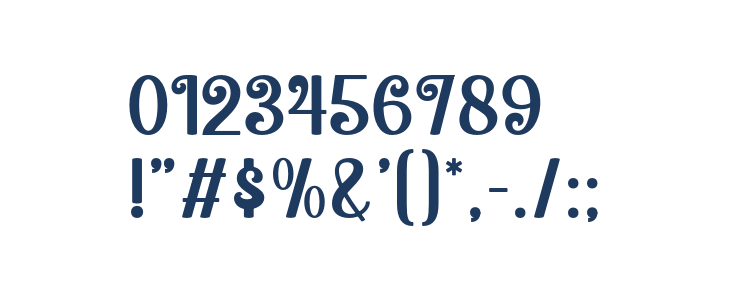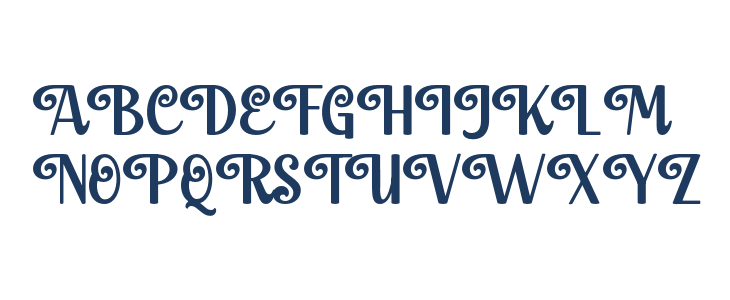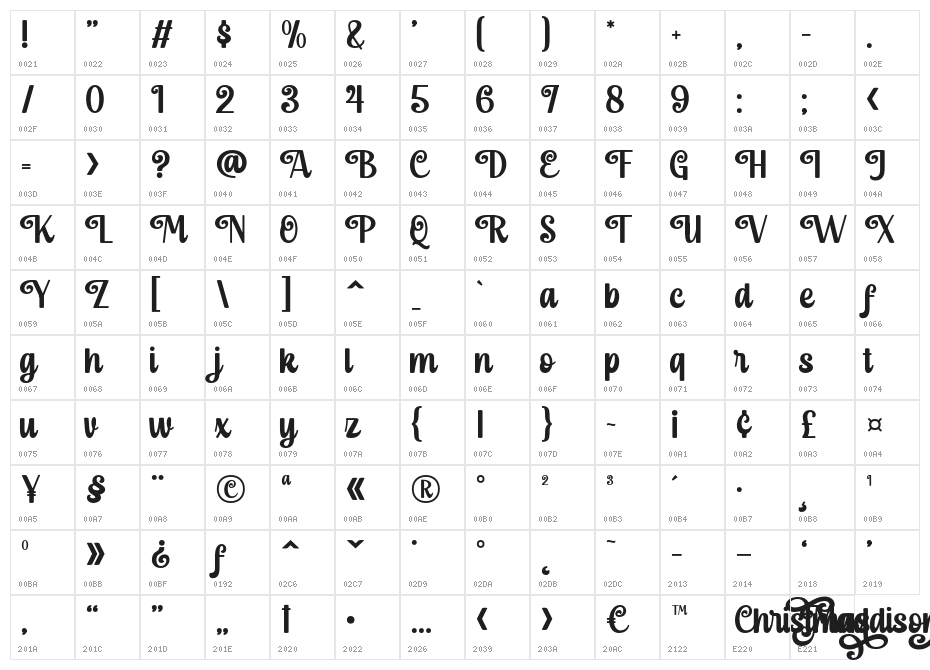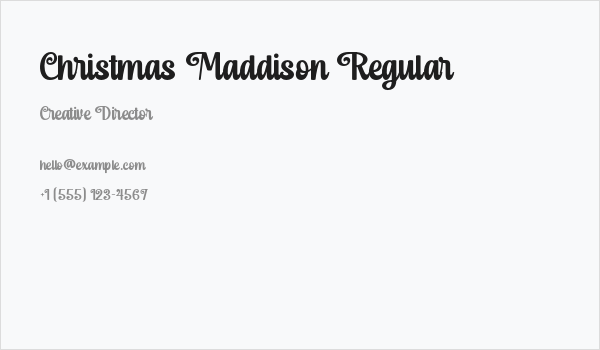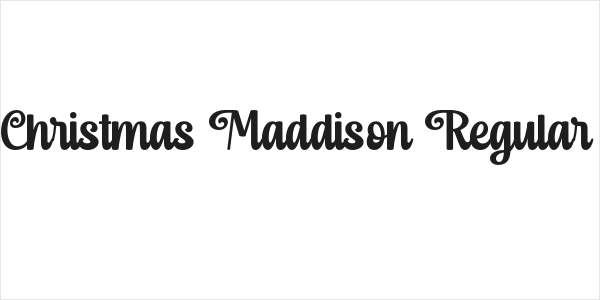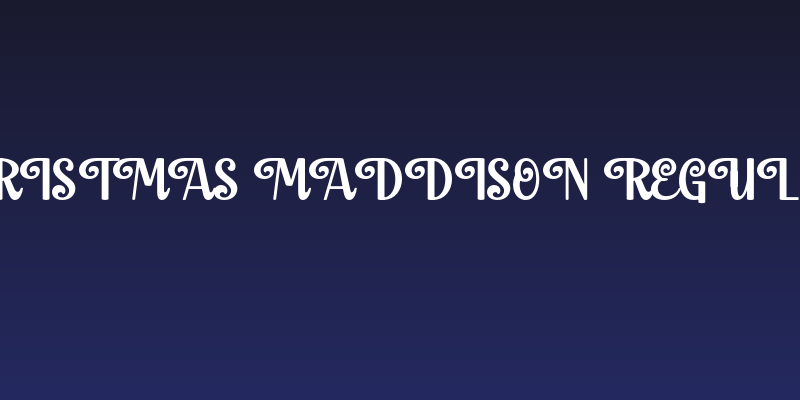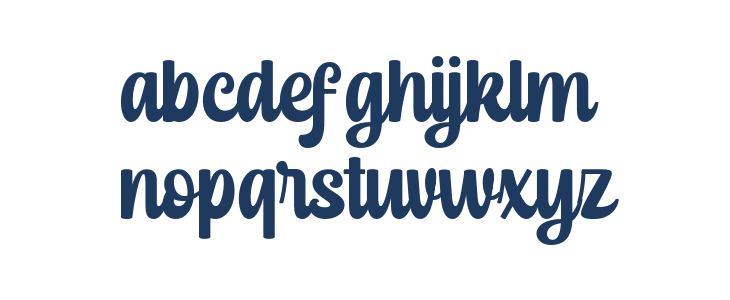
Christmas Maddison Regular Font
Christmas Maddison Regular Description
A playful, bold script font with decorative swashes and curls on many characters, featuring rounded terminals and a friendly, festive appearance. Uppercase letters are ornate, while lowercase letters are thick and smooth with consistent stroke width.
| Overall Style | Decorative, Playful, Festive |
| Use Case | Headlines, Logos, Invitations, Posters |
| Proposed Projects | Holiday cards, party invitations, festive branding, childrenΓ’β¬β’s book covers, event posters. |